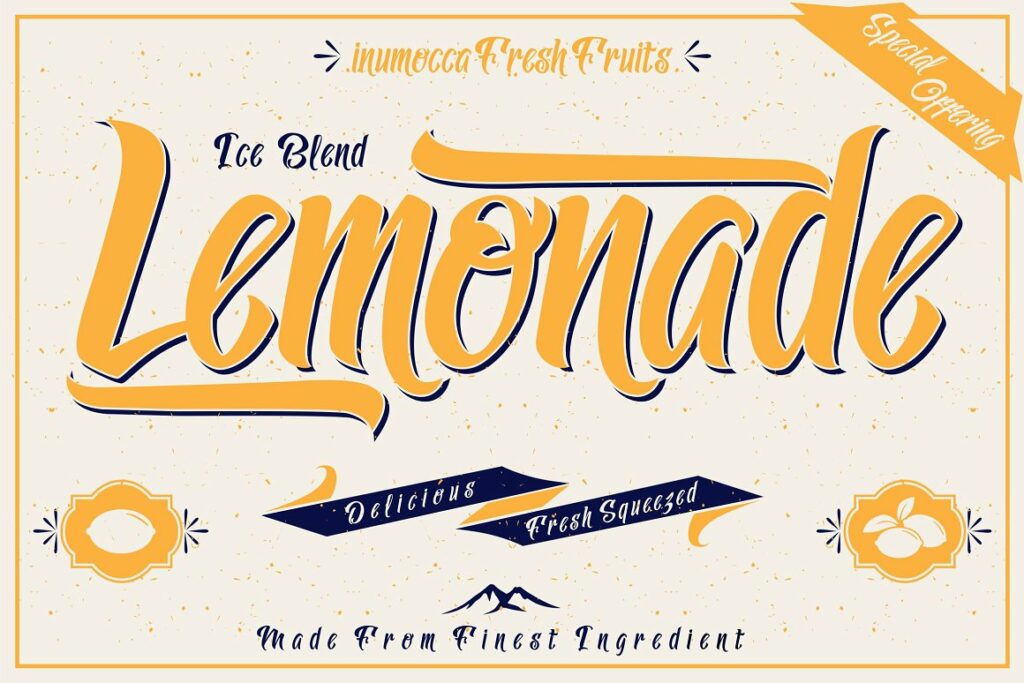
Lemonade Font
Lemonade font inspired from vintage style of packaging its really great font for your band, company, label, clothing company, vintage or classic stuff, etc i give attractive offering for this promotional.